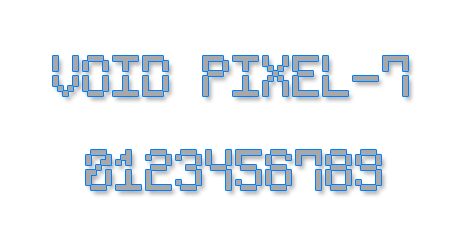
Void Pixel-7 by Style-7 is a free pixel font with tall, lean lettering and the spare look of an early computer display. Broad gaps and broken joins keep the forms distinctly mechanical.
An indie game interface is its strongest setting, especially for status labels and title screens with a stripped-back electronic theme. The narrow proportions also suit technology posters, album artwork, and event graphics, where the lettering can echo circuit paths or segmented display elements. Its clean austerity points toward retro computing and science fiction, making it especially apt for projects built around terminals, digital systems, or imagined machinery.
Void Pixel-7
Style-7
Sizenko Alexander